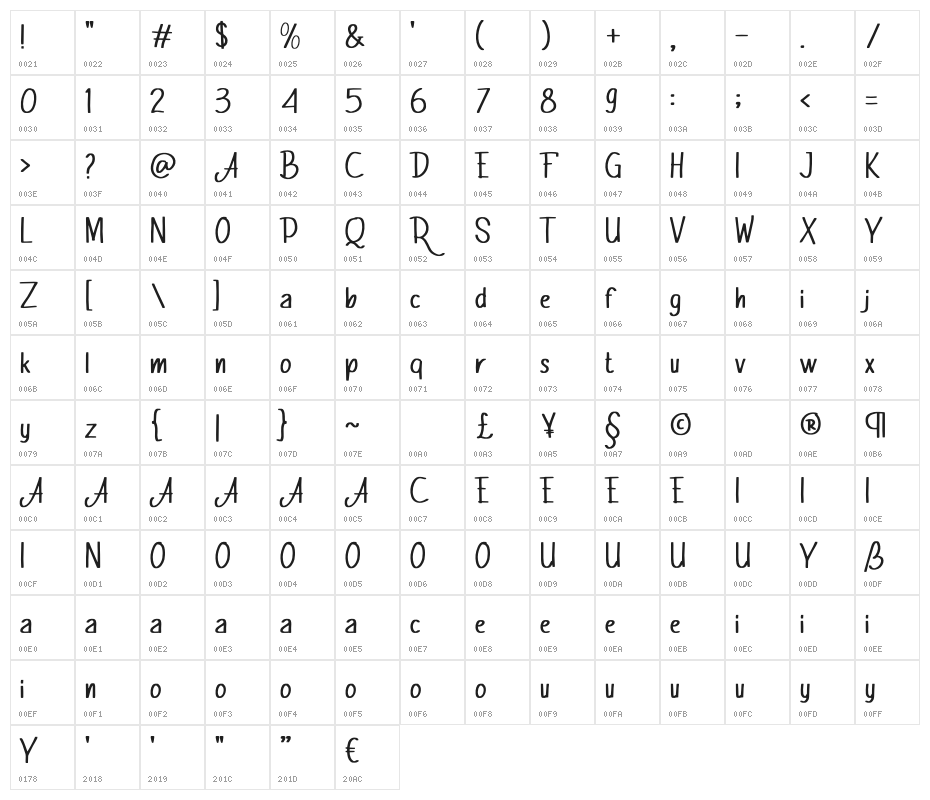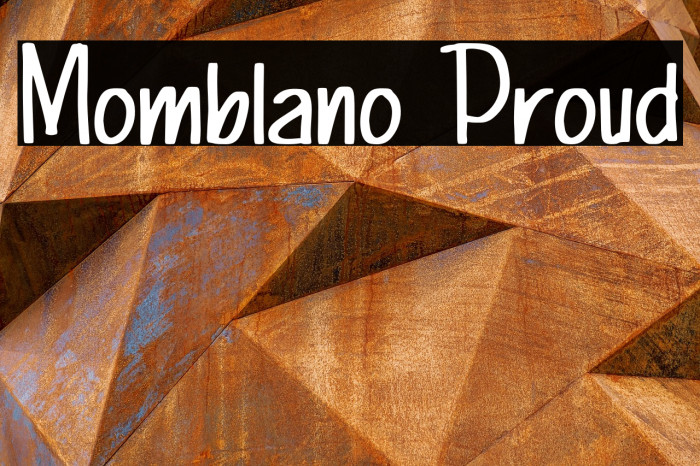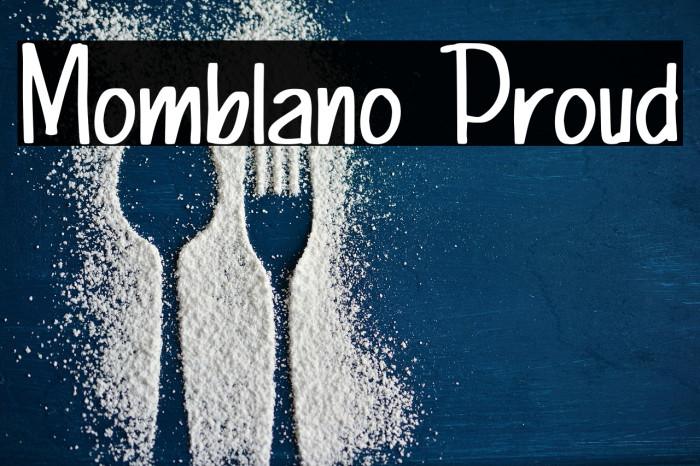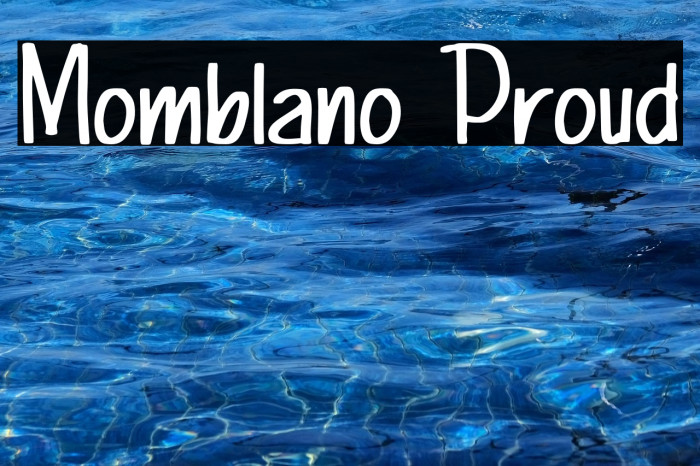
Momblano Proud Font
Momblano Proud Description
This font features a playful and casual handwritten style, characterized by its slightly irregular strokes and whimsical curves. The uppercase letters are tall and slender, with a slight slant that adds a sense of movement and energy. The lowercase letters maintain a consistent flow, with rounded edges that enhance the approachable and friendly appearance. Numbers are bold and clear, ensuring readability. Special characters are creatively designed, adding to the font's unique personality. Overall, this font exudes a sense of fun and creativity, making it ideal for projects that require a personal touch.
| Use Case | Headlines, Informal Text, Creative Projects |
| Proposed Projects | Ideal for greeting cards, children's books, playful branding, and creative social media graphics. |